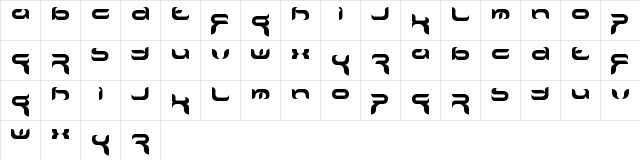
crafty Regular
Design Context for crafty Typeface
crafty is a composed and adaptable typeface that performs quietly and consistently across a wide range of design contexts.